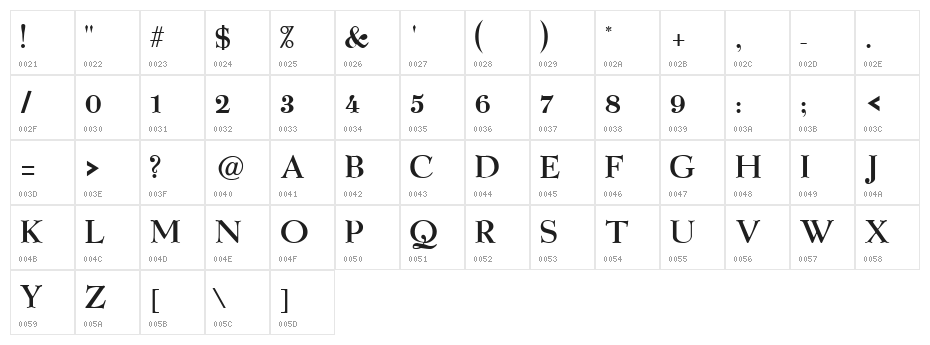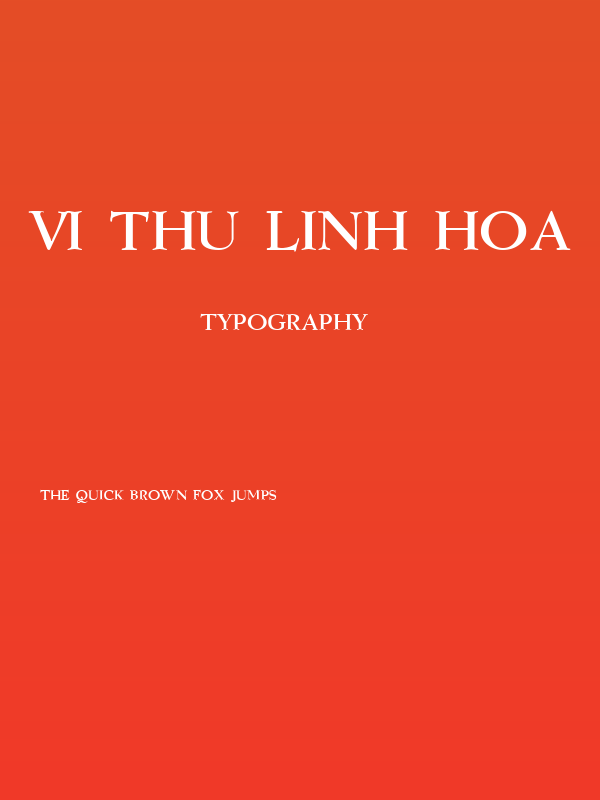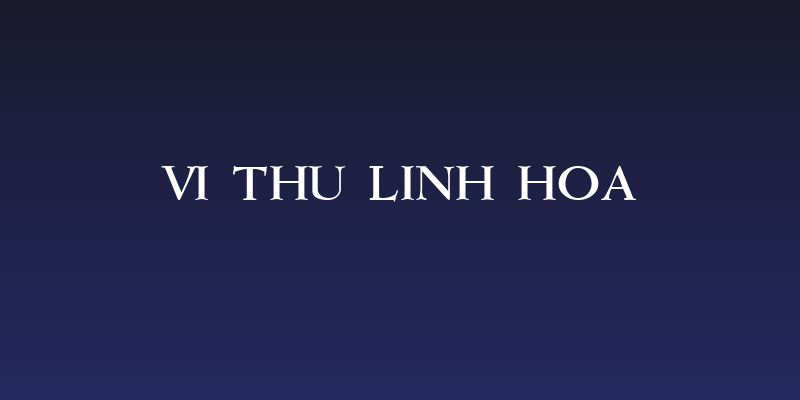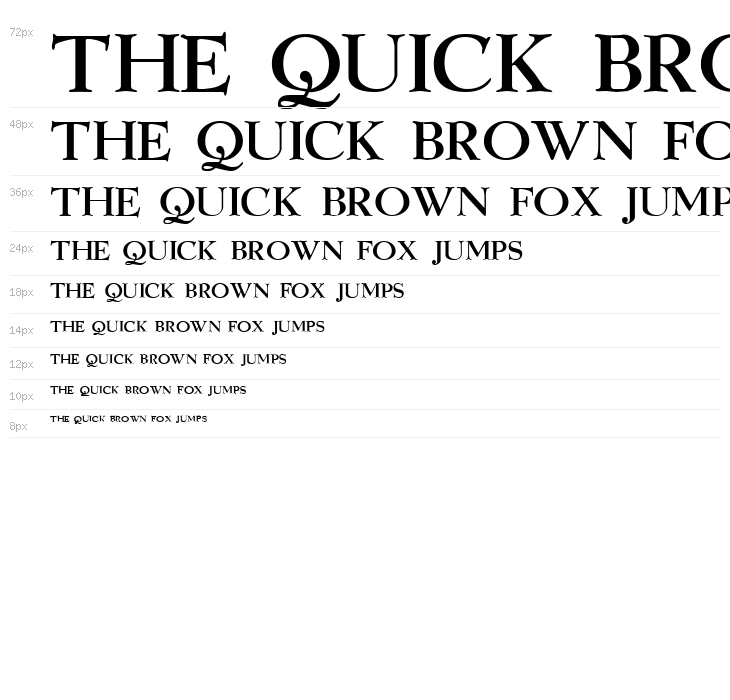
VI Thu Linh Hoa Font
VI Thu Linh Hoa Description
This font features a classic serif style with elegant and sharp serifs that give it a sophisticated and timeless appearance. The uppercase letters are bold and commanding, while the lowercase letters maintain a consistent style with slightly less weight. The numerals are clear and well-defined, making them easily readable. Special characters are designed with the same attention to detail, ensuring a cohesive look across all glyphs. The overall design is reminiscent of traditional serif fonts, yet it incorporates modern elements that make it suitable for contemporary use.
| Proposed Projects | Ideal for editorial design, book covers, formal invitations, and branding projects that require a touch of elegance. |